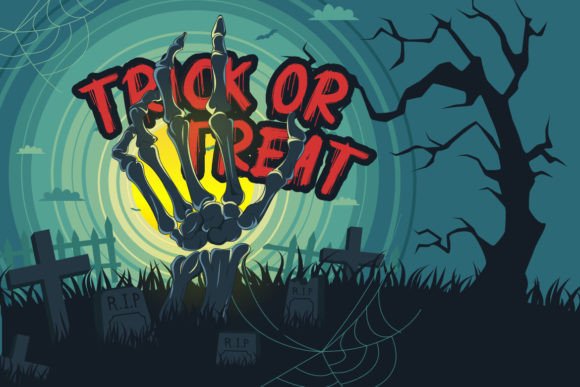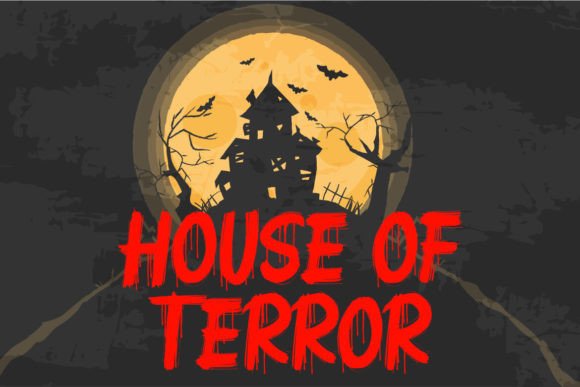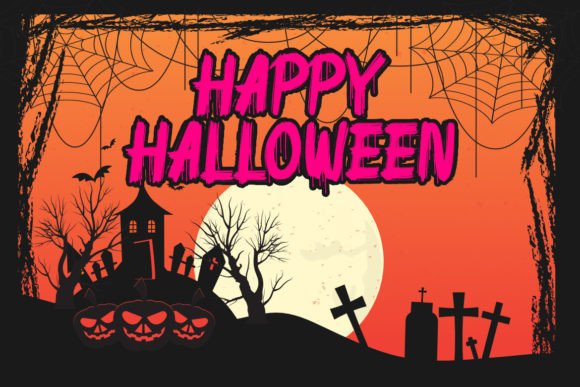
Introduction to Jengled Font
As a designer, have you ever found yourself in a creative rut, searching for the perfect font to bring your project to life? I know I have. There’s nothing quite like the thrill of stumbling upon a unique design element that takes your project to the next level. For me, that moment came when I discovered the Jengled Font – a spooky style of writing that looks like blood dripping down a page.
Perfect for creating an eerie atmosphere in scary stories or Halloween-themed designs, the Jengled Font is a valuable resource for designers looking to add a touch of darkness to their creative projects. With its high-quality design and transparent background, this font is a must-have for anyone looking to create a truly immersive experience.
Key Features of Jengled Font
- High-quality design resource ideal for creative projects, available for free download with a transparent background.
- Features a unique, bold aesthetic that can be used to add a touch of sophistication to any design project.
- Supports a wide range of languages, making it a versatile design resource for global creative projects.
- Comes in a single weight, perfect for creating a cohesive and professional look in logos, typography, and other design elements.
Honest Review: Jengled Font
As a designer, I’m always on the lookout for high-quality design resources that can elevate my creative projects. Recently, I stumbled upon the Jengled Font, and I’m excited to share my honest review with you.
- ✨ Unique and playful design style that adds a touch of whimsy to any project
- ✨ Excellent legibility, making it perfect for body text and headings
- ✨ Transparent background option, allowing for seamless integration with any design element
- ⚠️ Limited character set, which may not be suitable for projects requiring extensive typography
- ⚠️ Some users may find the font a bit too bold, so it’s essential to use it judiciously
Overall, I’m impressed with the Jengled Font’s quality and versatility. As a free download, it’s an excellent addition to any designer’s toolkit. While it may not be perfect, its unique style and high-quality design make it a valuable resource for any creative project.
For optimal results, use the Jengled Font in conjunction with high-quality graphics and a clear design concept. Common use cases include creating eye-catching social media posts, designing engaging presentations, and crafting professional business cards.
Does the Jengled Font have a transparent background?
No, the Jengled Font does not have a transparent background. However, you can easily achieve a transparent background effect by using a design software that supports this feature, such as Adobe Illustrator or Photoshop.
What is the recommended size for using the Jengled Font in a design project?
The recommended size for using the Jengled Font is between 12-24 points, depending on the design software and the specific application. This will ensure optimal legibility and readability in your design project.